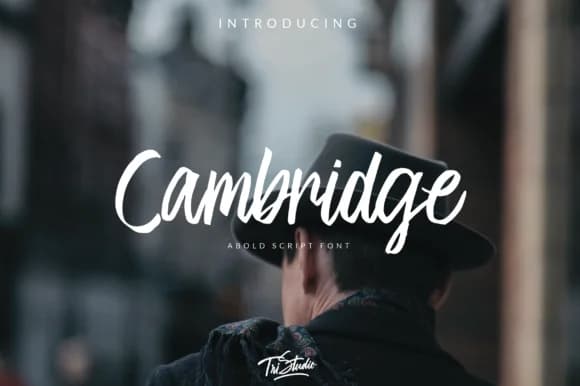
There's something effortlessly confident in every line of this typeface. Cambridge, from 78soeef Design, strikes that rare balance between friendly and polished, making it work equally well for relaxed social media graphics and upscale event designs alike.
The casual letterforms have enough character to shine in wedding invitation suites, lifestyle brand identities, and boutique stationery packaging without veering into playfulness or feeling forced. Instagram story graphics gain natural warmth when set in Cambridge, as do small-batch product labels, custom greeting cards, and the kind of blog headers that actually make people stop and read. The typeface holds its own as a standalone headline or as the anchor of a larger design system. Each letter maintains that natural handwritten quality while staying legible enough for both print and digital applications, which makes it surprisingly practical despite its visual personality. That balance between character and usability is harder to find than it looks in modern script fonts.
Pair Cambridge with a clean sans-serif for body copy to anchor your layouts and maintain strong readability throughout your designs. The contrast lets Cambridge do what it does best: draw attention and bring warmth to the page. You'll find it ready to use on Creative Fabrica.
Cambridge Font is a script font that shines as a display or heading face. Pair it with a clean sans-serif or serif font for body text β the contrast creates a clear hierarchy while the two styles stay balanced and easy to read.